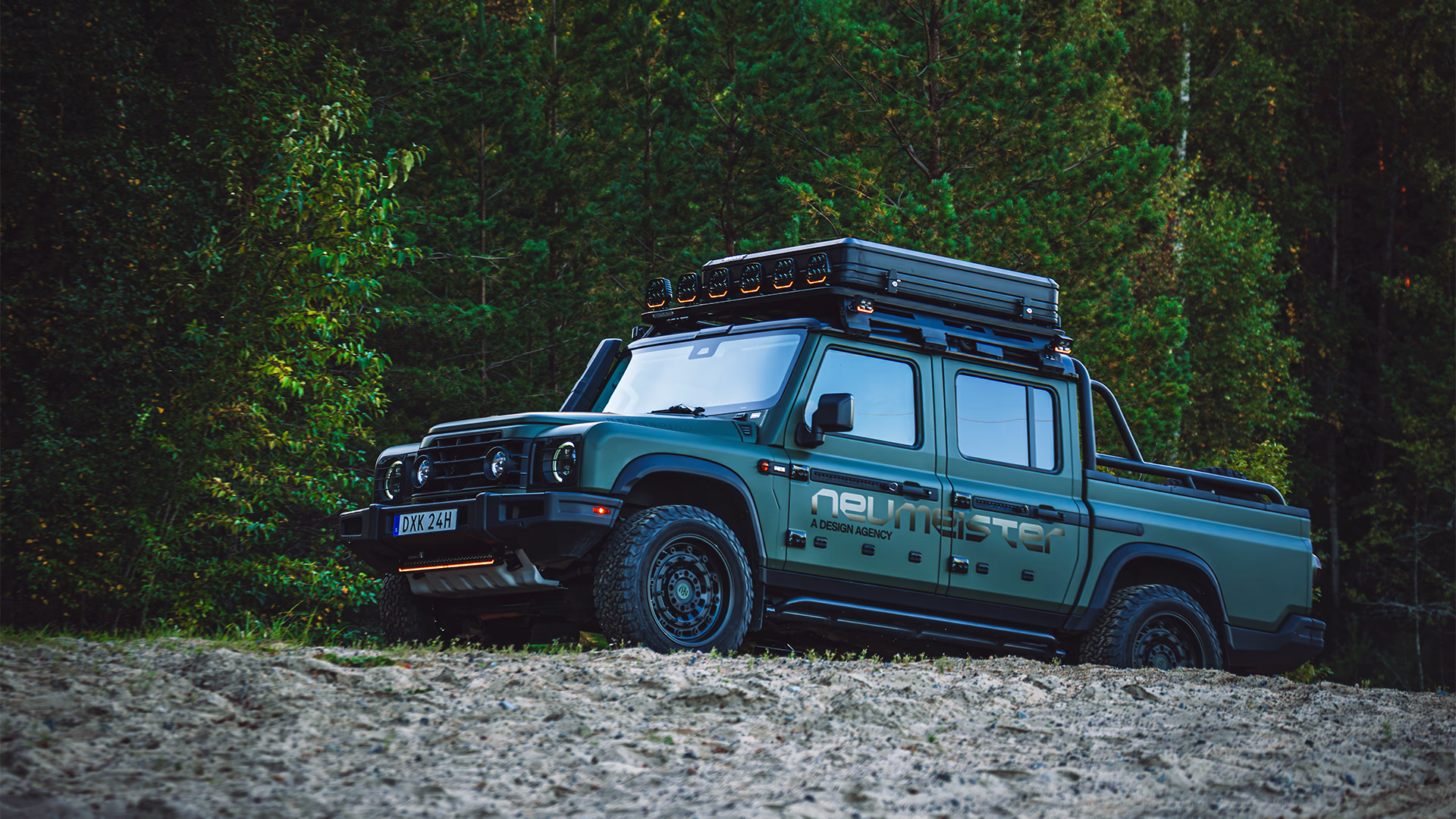
Grenadier: built by function
No decoration. No distractions. No compromises. The INEOS Grenadier is a working tool — built for durability, clarity and control in the harshest conditions. Our typeface follows the same logic, reducing every letter to its structural core.
Made to work
Built on a ladder frame with solid axles and mechanical controls you can operate with gloves on, the Grenadier feels closer to field equipment than a lifestyle SUV. It’s made for job sites, expeditions and places where roads — and trends — don’t matter.
Every part earns its place. Nothing is there for show.
Order and precision
The pickup version carries the name Quartermaster, borrowed from the military role responsible for managing supplies, tools and everything needed to keep an operation running. It’s a function built on order, precision and reliability.
A quartermaster doesn’t embellish; it organises, distributes and sustains. The typeface follows the same discipline, where every component has a purpose and nothing is added without reason.
Engineered in type
The Grenadier typeface is built rather than styled, using straight edges, right angles and solid strokes that carry real visual weight. Rectangular shapes repeat across the alphabet, creating a dense, sturdy rhythm that echoes the vehicle’s physical mass. At the same time, generous spacing improves clarity, heavy weights add durability, and sharp diagonal cuts bring strength and direction to the letterforms.
Proven in practice
INEOS didn’t start as a car company. It began as an engineering business — and when no modern utility vehicle met their standards, they built one themselves. Prototypes were tested for over a million miles before production. The Grenadier Quartermaster backs it up with 3.5 tonnes of towing capacity and over 2,000 litres of load space — capability built for real work.